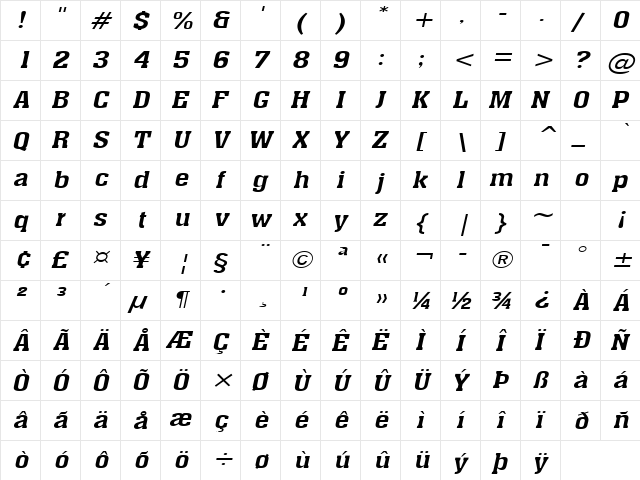
Ache-Extended Italic
Design Context for Ache-Extended Typeface
Ache-Extended is a composed and adaptable typeface that performs quietly and consistently across a wide range of design contexts. The dynamic lean of this cut emphasises speed and emphasis in any layout.
Pro Tip: Use Ache-Extended for emphasis, pull quotes, and subheadings where its slanted energy can add rhythm to the layout.